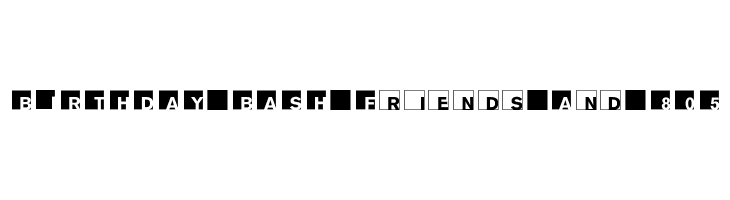
bleuck reversed Font
- Font: bleuck reversed
- Weight: reversed
A bold, geometric font with characters in solid squares, offering a modern and structured appearance.